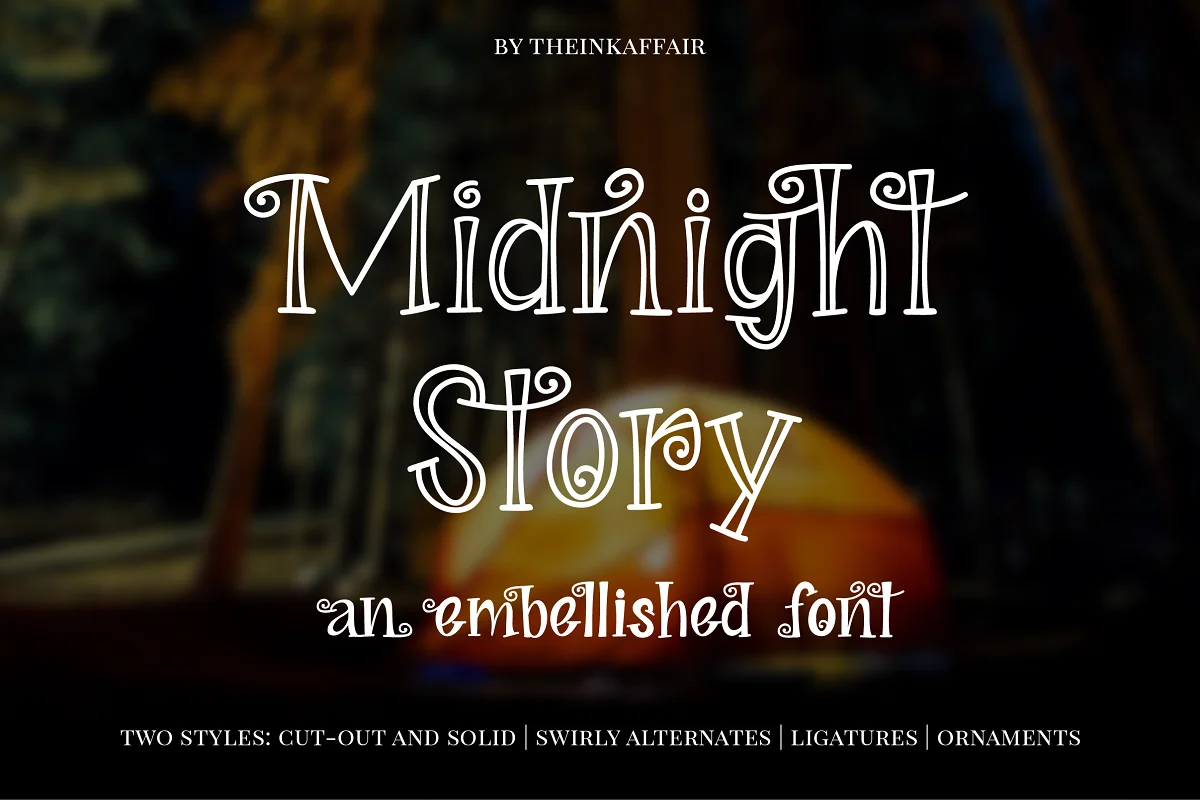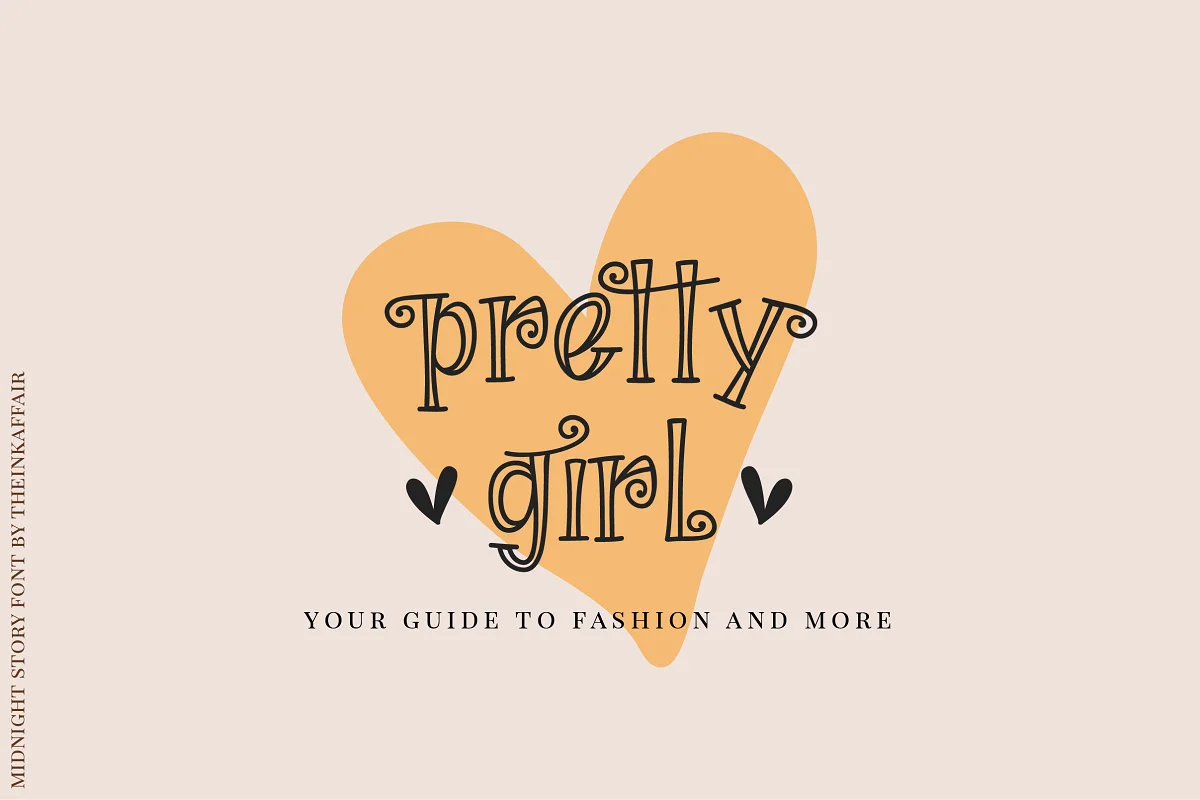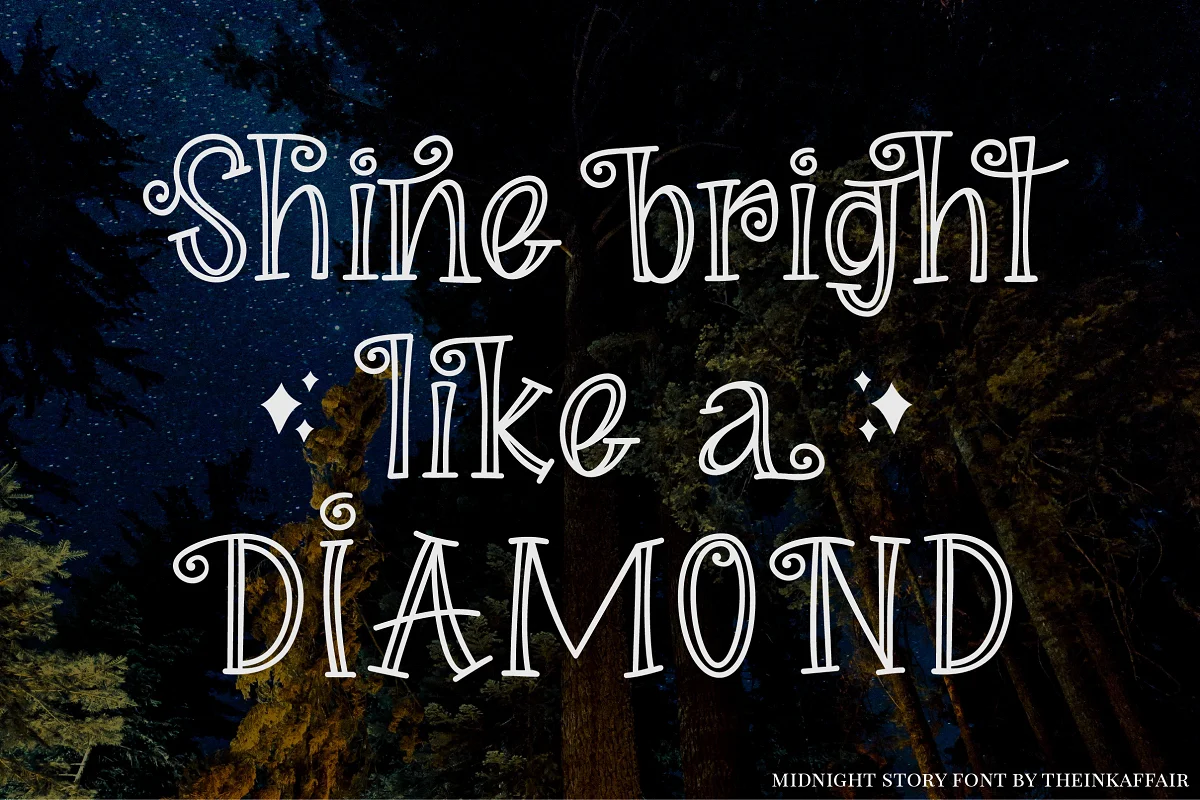
About the Midnight Story Font
Introducing Midnight Story, an adorably quirky decorative font that comes in two styles – cut out and solid! Funky and fun, it’s perfect for designing logos, quotes, photo overlays, branding, apparel – anything and everything your heart desires.
Midnight Story comes with a big bunch of swirly alternatives – one set of uppercase alternatives and *two sets of lowercase alternatives that work great as starting and ending letters along with a variety of ligatures!
Two sets of Ornaments are included in the font as alternates to numbers 1-9!